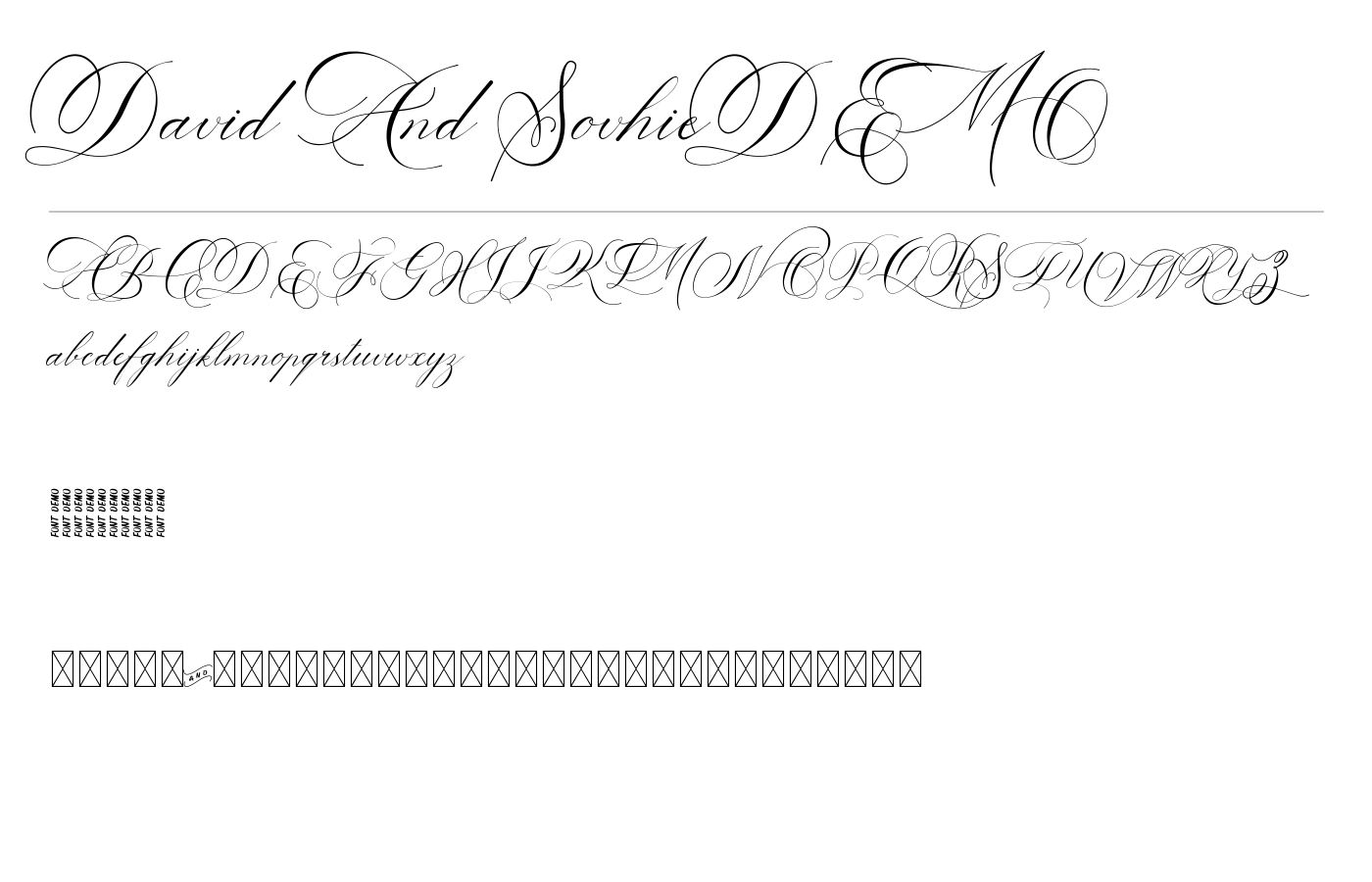
David and Sovhie is an elegant script font characterized by its delicate, flowing strokes and high contrast between fine lines and thicker swashes. Its intricate, calligraphic style with elaborate flourishes makes it perfect for luxury branding, wedding invitations, and high-end editorial projects where a refined and sophisticated impression is desired. This font’s graceful letterforms add a sense of classic beauty and artistic flair, ideal for creating memorable headlines and decorative text.
David and Sovhie Font
About David and Sovhie Font
| Font family | David and Sovhie Font |
| Designer | David Kasidi |